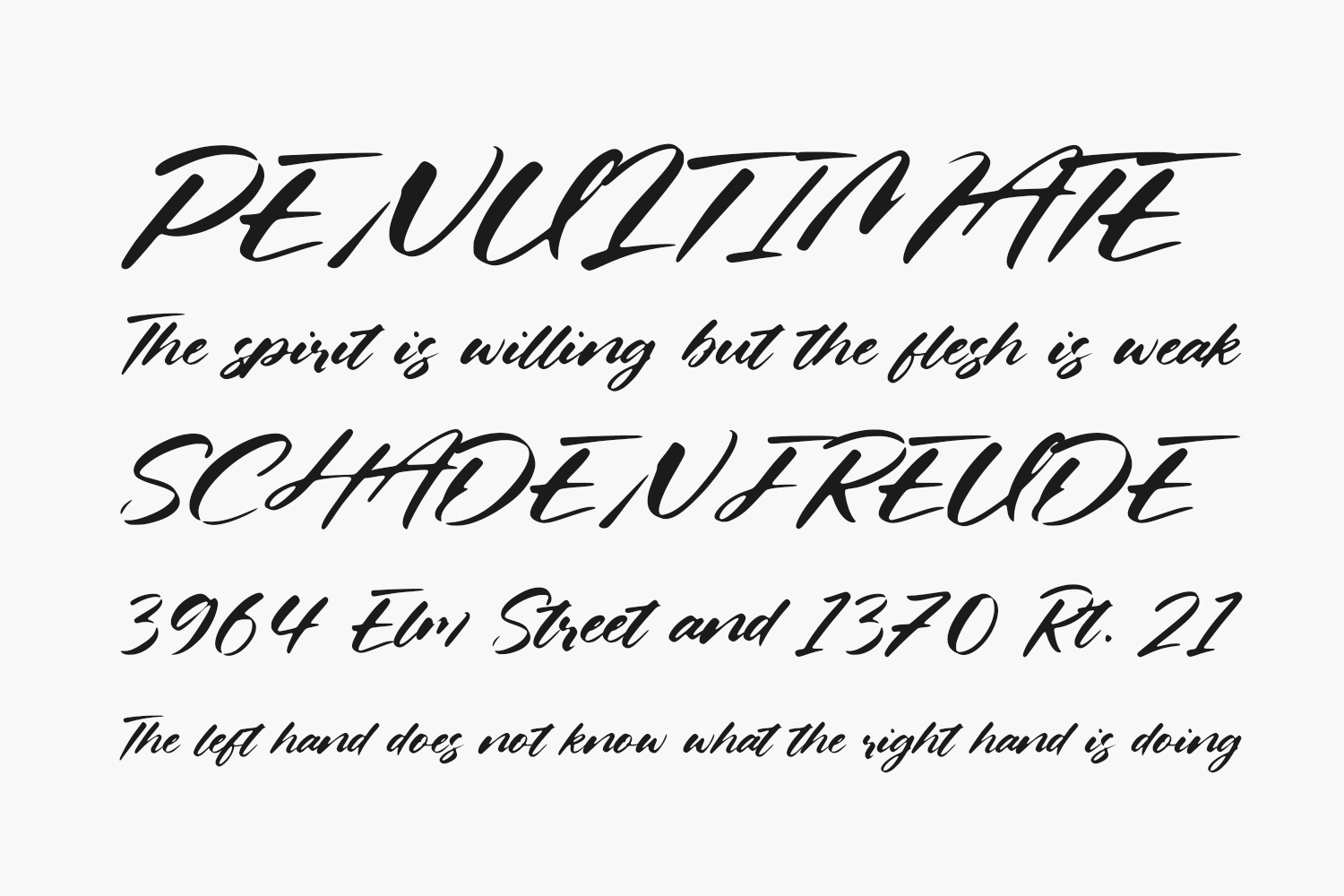
Indulge in the captivating allure of Gladiatore Free Font, a typeface that exudes both charm and elegance. This stunning font is specifically designed to enhance the beauty of wedding invitations, thank you cards, quotes, greeting cards, logos, business cards, and any other design that craves a personalized touch.